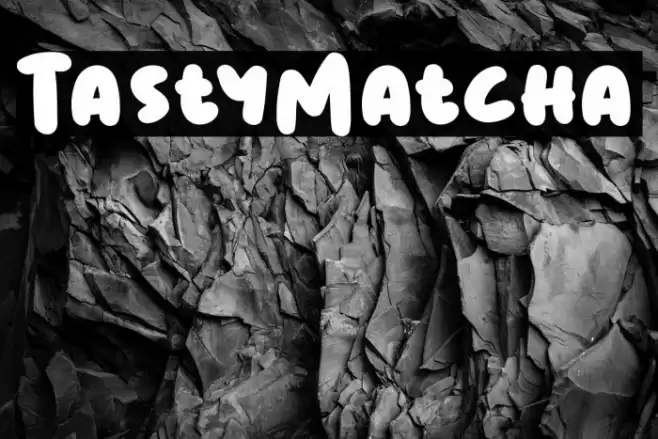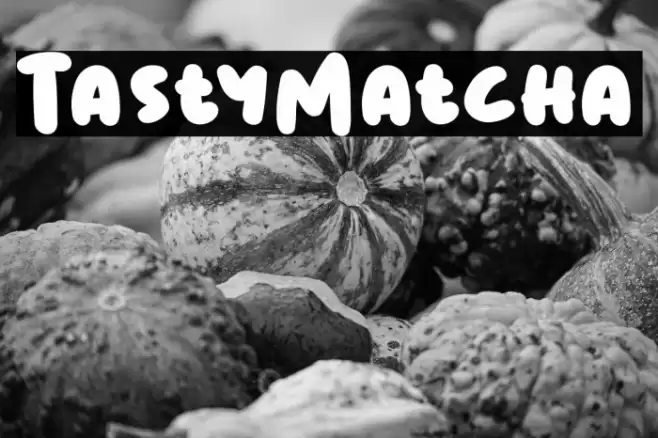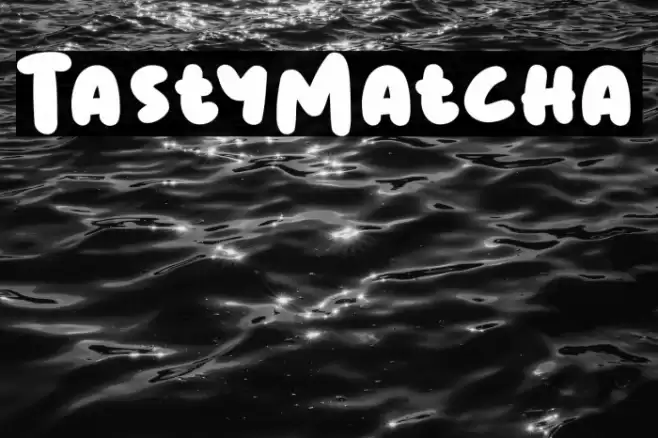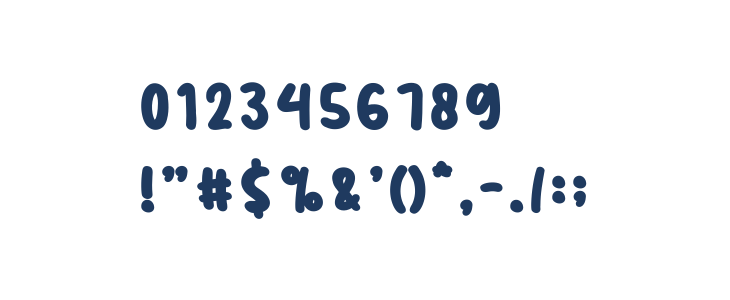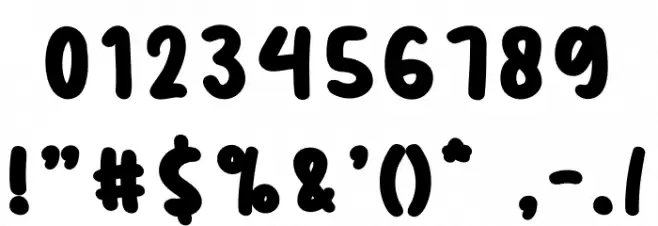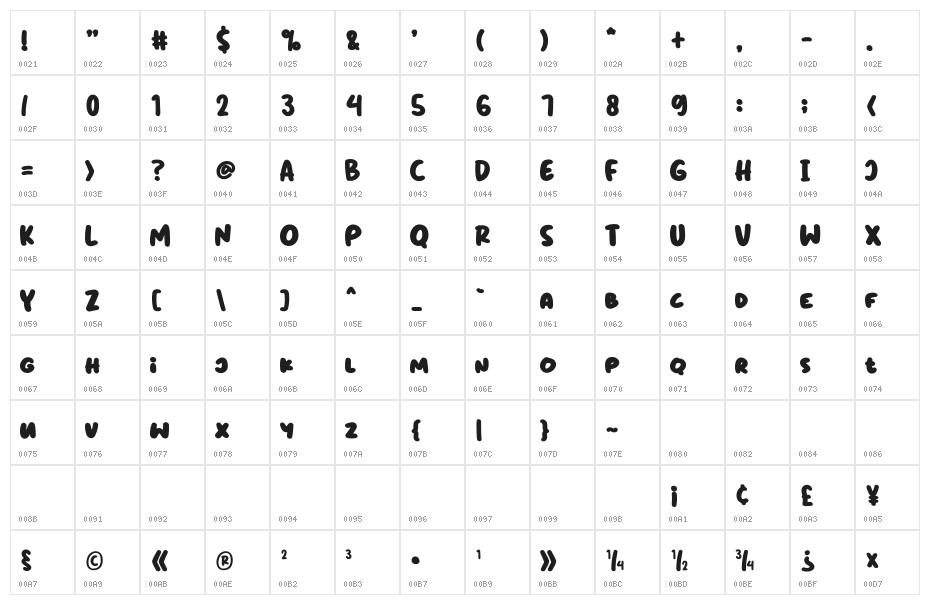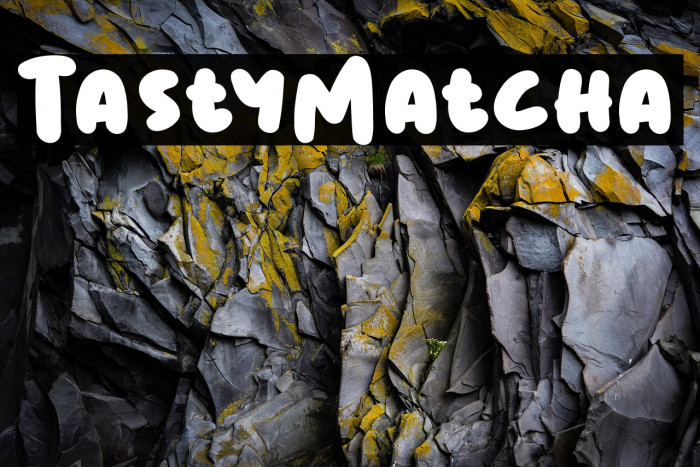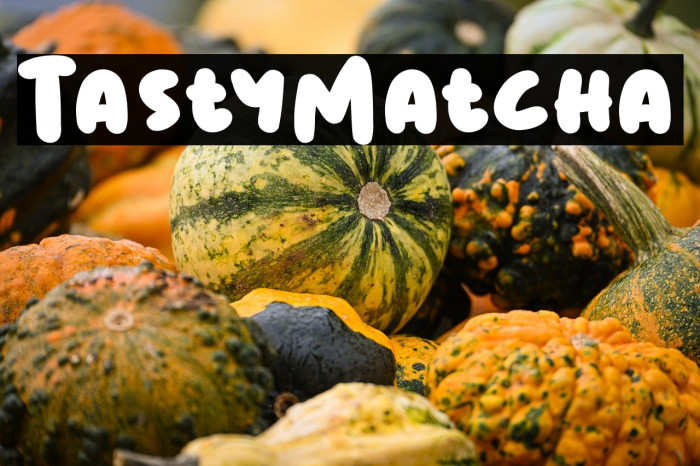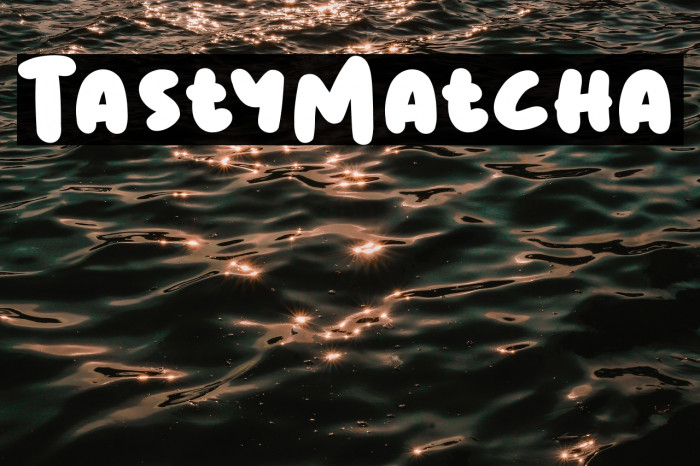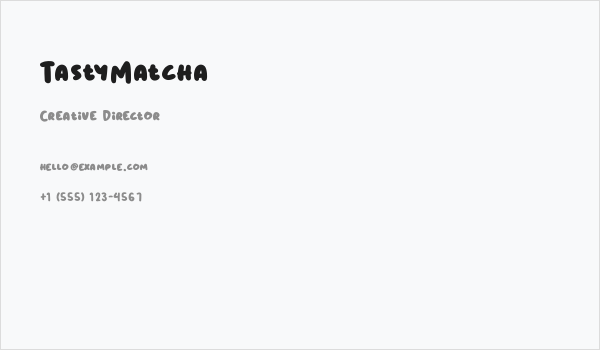
TastyMatcha Font
TastyMatcha Description
This playful and bold font features rounded, bubbly characters that convey a sense of fun and approachability. The uppercase and lowercase letters maintain a consistent style, with thick strokes and smooth curves that create a cohesive look. Numbers and special characters are equally bold, ensuring readability and uniformity across different uses. The font's design is reminiscent of hand-drawn lettering, adding a personal touch to any project. Its distinct appearance makes it ideal for creative and informal applications, where a friendly and inviting tone is desired.
A bold, playful font with rounded, bubbly characters and a hand-drawn feel from Cartoon fonts.
- Font: TastyMatcha
- Proposed Projects: Ideal for children's books, playful branding, event invitations, and social media graphics.
- Overall Style: Playful, Hand-drawn